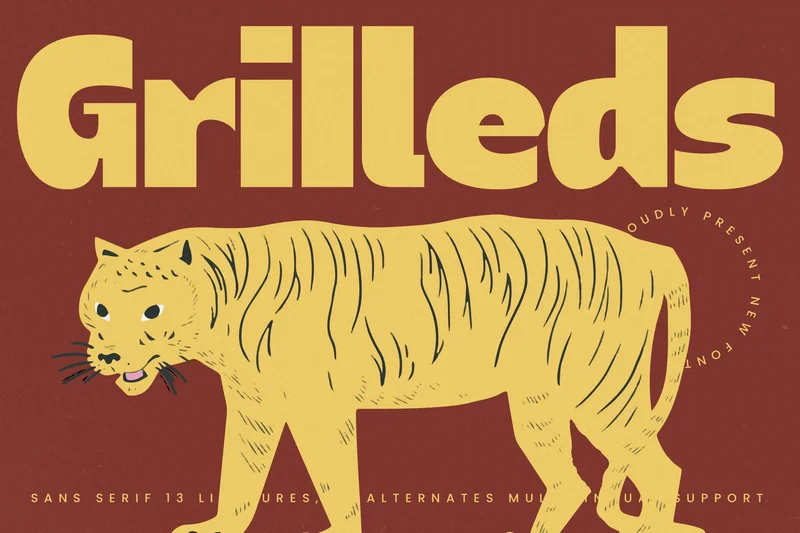
Grilleds – Sans Serif Font
Grilleds is a bold sans serif display font with strong geometric shapes and a playful retro charm. Designed with 13 ligatures and unique alternates, this typeface is perfect for logos, posters, packaging, social media graphics, branding, and editorial layouts. With its confident structure and modern vintage appeal, Grilleds is a versatile font for both digital and print projects, delivering bold personality and creativity.